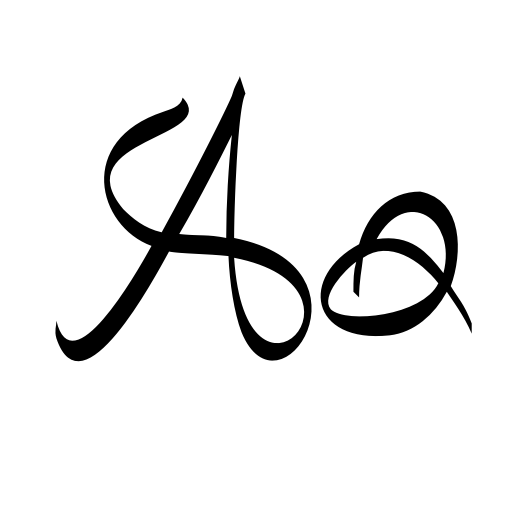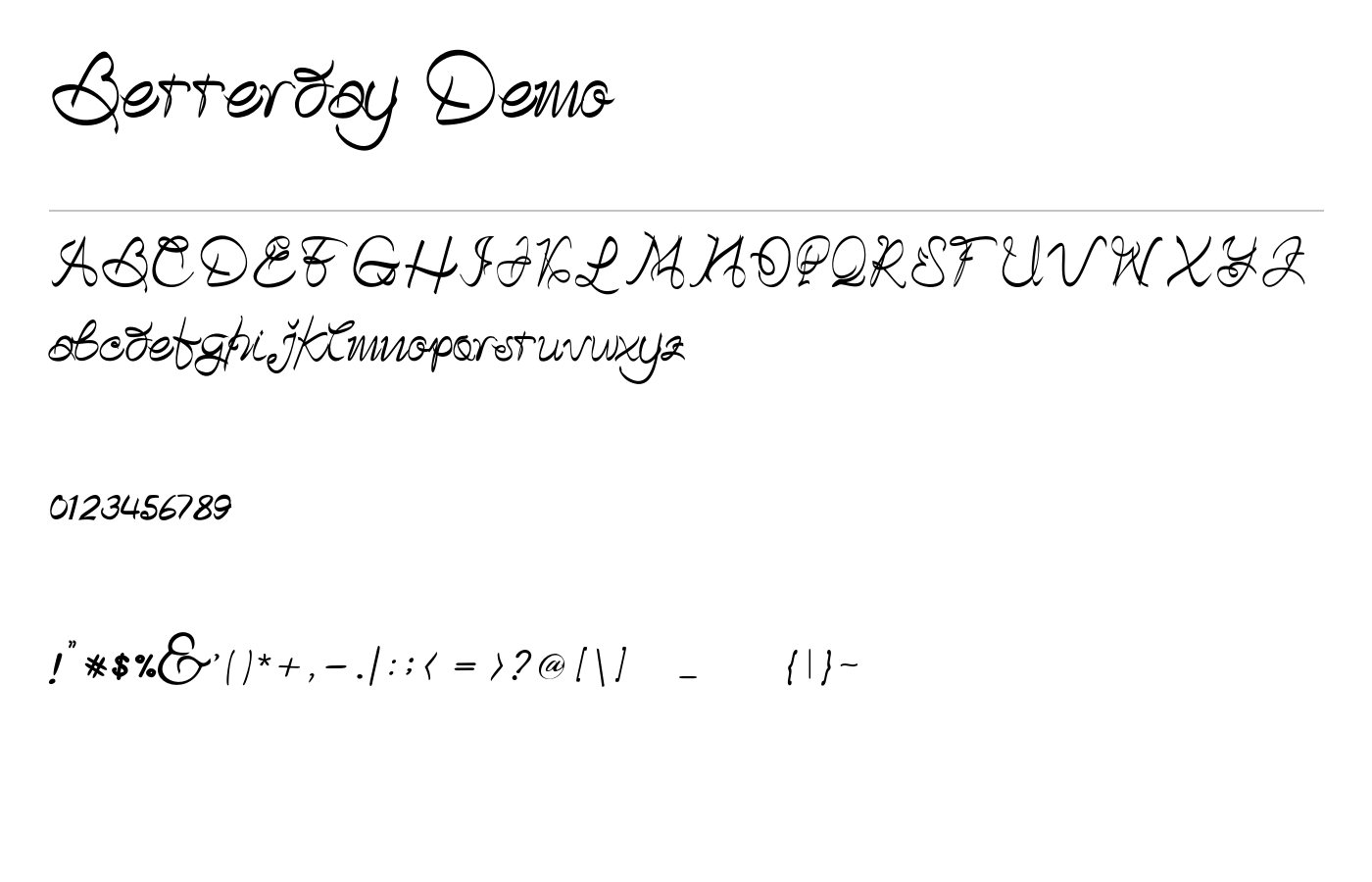
Betterday Demo is a decorative script font that features delicate, flowing strokes with a quirky, hand-drawn feel. Its elegant yet playful style lends itself well to creative projects like invitations, logos, and branding that seek a personal, artistic touch. This font works best in display sizes where its unique letterforms can shine without sacrificing readability.
Betterday Demo Font
About Betterday Demo Font
| Font family | Betterday Demo Font |